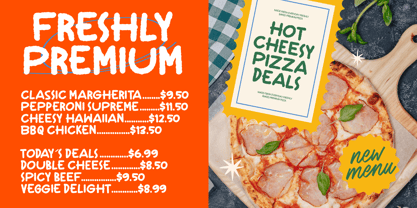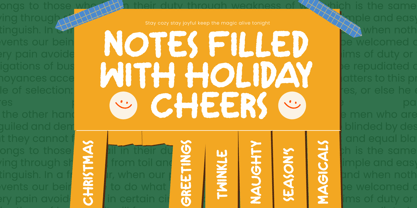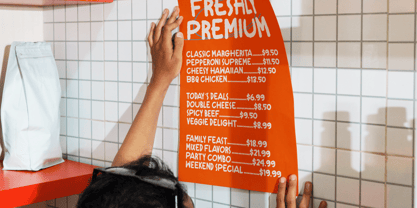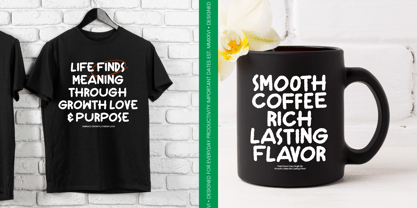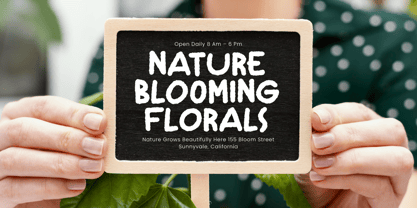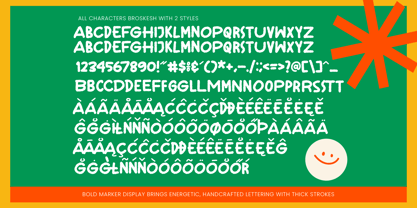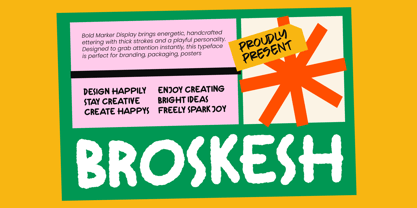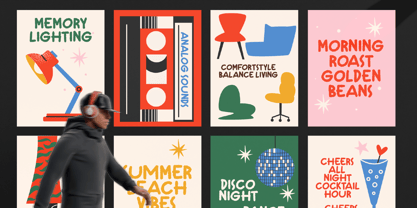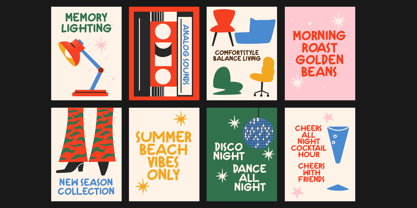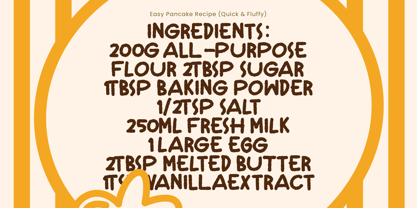
Broskesh
The Broskesh Font Family was designed by Heru Utama Putra and published by Stylishtype Studio. Broskesh contains 2 styles and family package options. More about this family
Broskesh is a high-octane marker typeface that brings raw, handcrafted energy to every headline and layout. It is the perfect choice for designers looking to inject a sense of fun and immediate visual presence into their work.
Born from the spontaneous strokes of a thick permanent marker, this font replicates the authentic ink-on-paper texture that defines urban aesthetics. The design celebrates the imperfections of hand-lettering, creating a vibrant atmosphere that feels both modern and nostalgic.